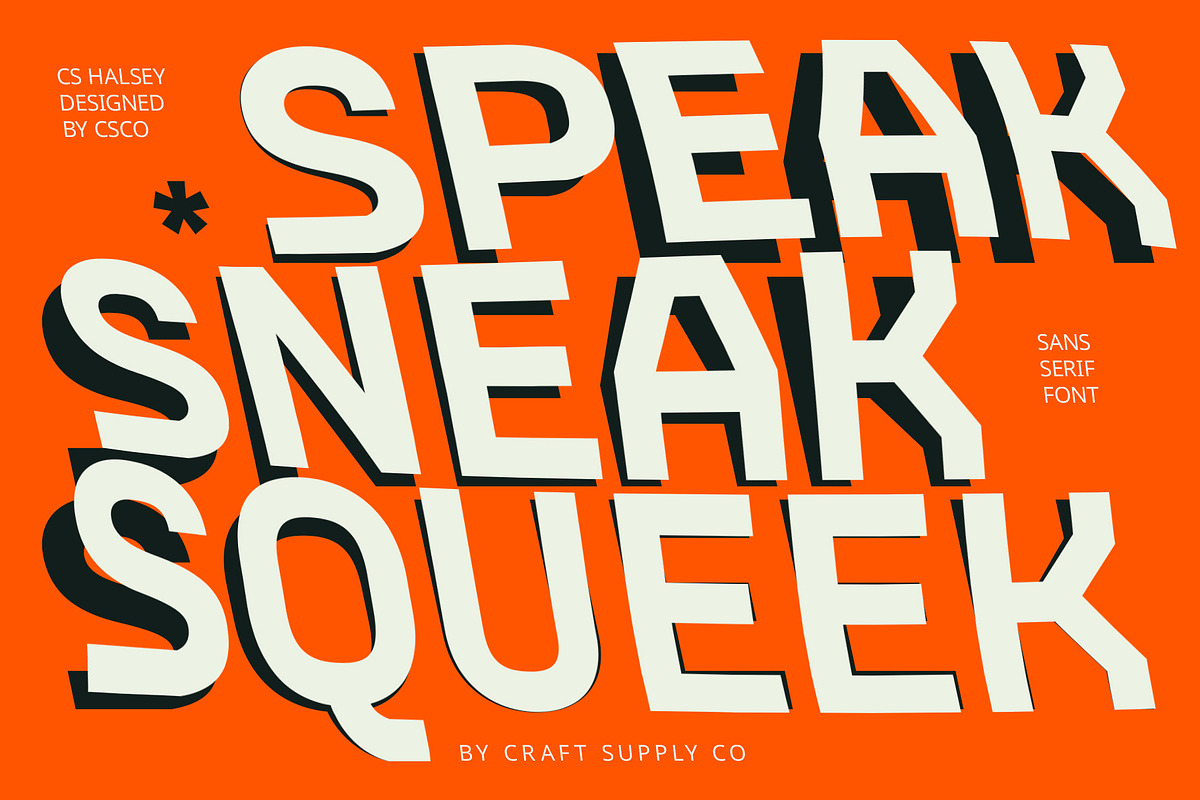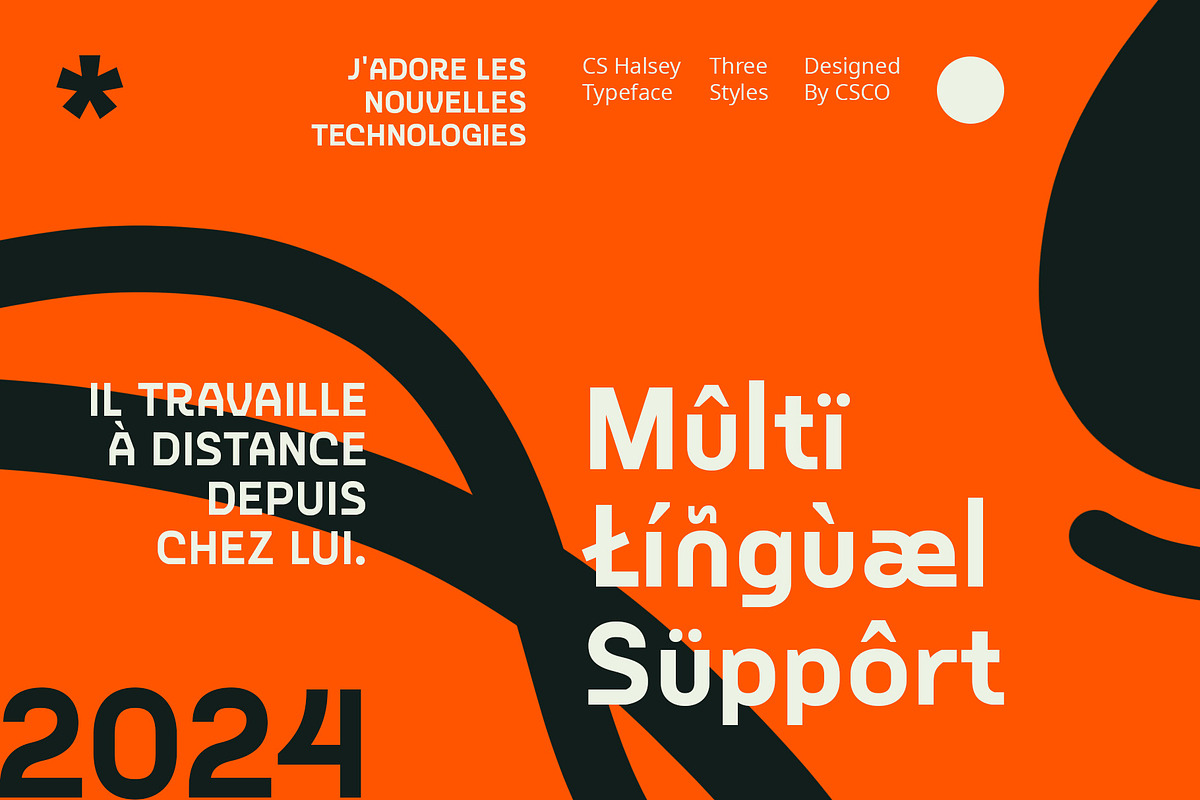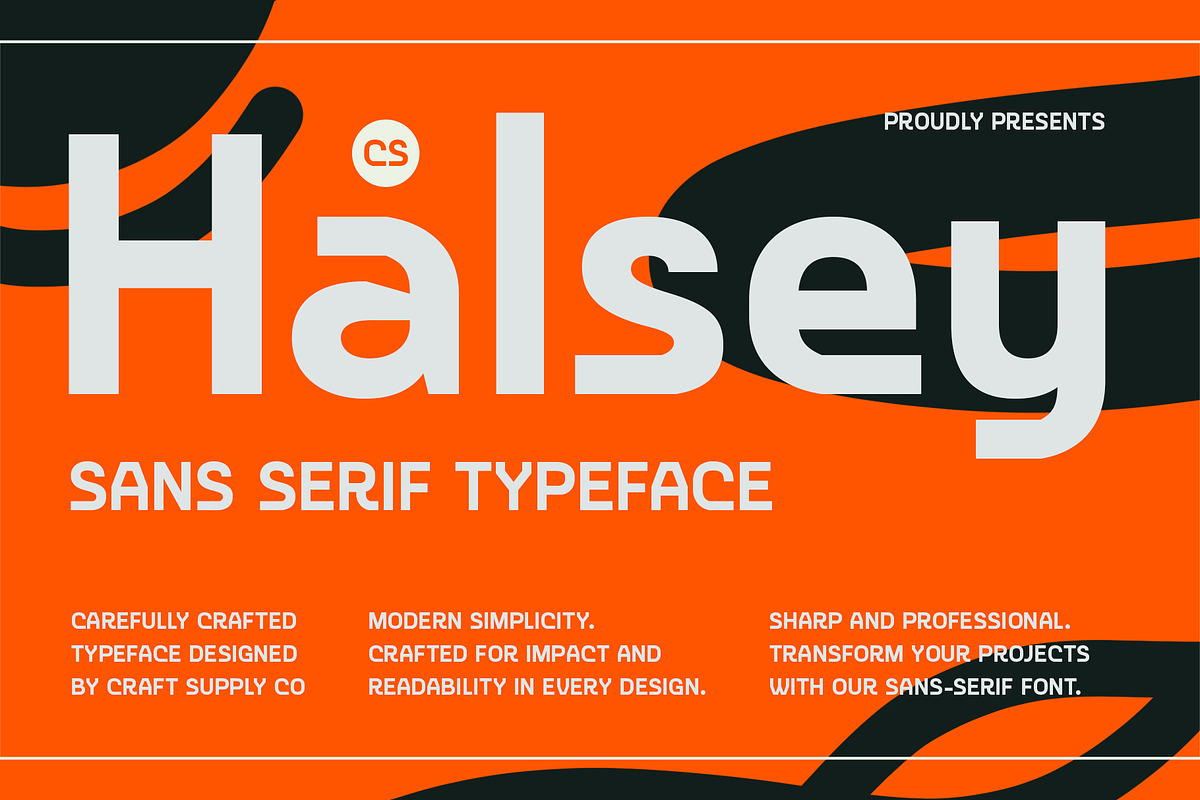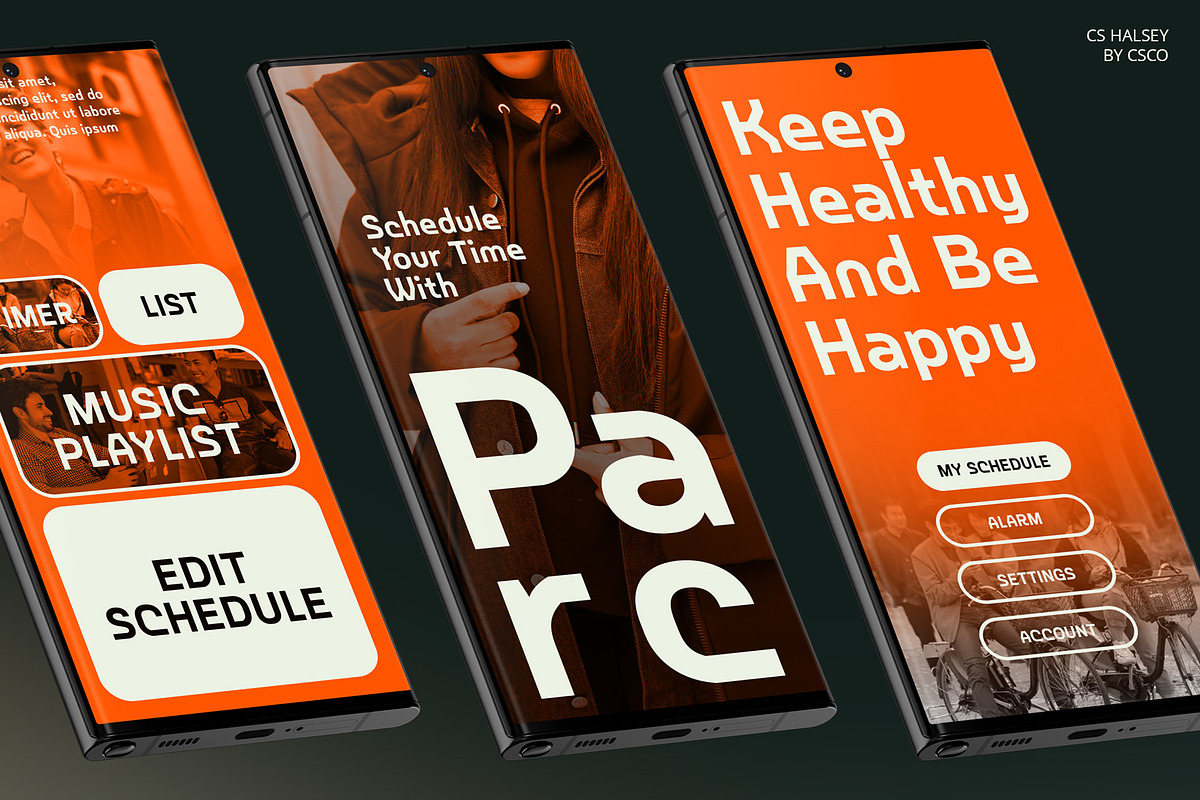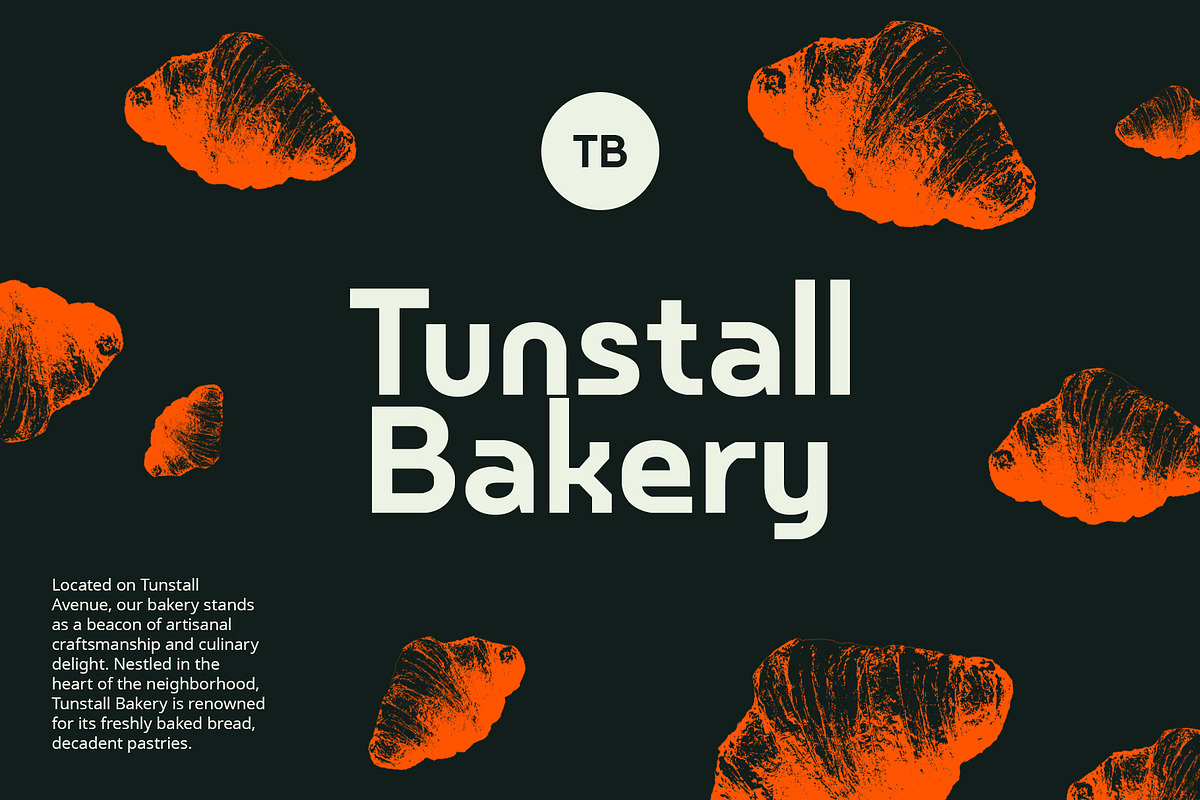
CS Halsey – Sans Serif Typeface
CS Halsey – Sans Serif Typeface: Where Clarity Meets Modernity
Modern Sans Serif Font
CS Halsey is a modern sans serif font designed for contemporary design applications, featuring a clean and minimalist design that ensures clarity both on screen and in print. Its simplicity and readability make it an excellent choice for a wide range of projects.
Versatile Design
With its versatile design, CS Halsey adapts seamlessly to various design contexts, including branding, editorial layouts, and web design. Whether used for headlines, body text, or UI elements, its clean lines and balanced proportions maintain readability and visual appeal.
Professional Impression
CS Halsey delivers a professional and contemporary impression, ideal for businesses operating in dynamic and modern environments. Its straightforward design enhances the visual identity of brands, ensuring consistency and clarity across different media.
Optimized for Modern Applications
Crafted to excel in modern design environments, CS Halsey combines functionality with style, making it a reliable choice for conveying a polished and professional image. Whether in digital or print media, this font enhances the visual impact of your projects while maintaining readability and clarity.
- CS Halsey Regular
- CS Halsey Italic
- CS Halsey ReverseItalic